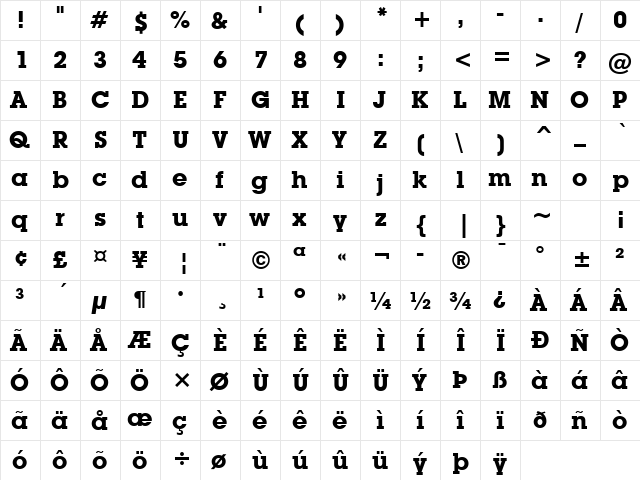
LubalGraph Bd BT Bold
Design Context for LubalGraph Bd BT Typeface
LubalGraph Bd BT is a composed and adaptable typeface that performs quietly and consistently across a wide range of design contexts. Its bold stroke weight gives it real presence on the page.